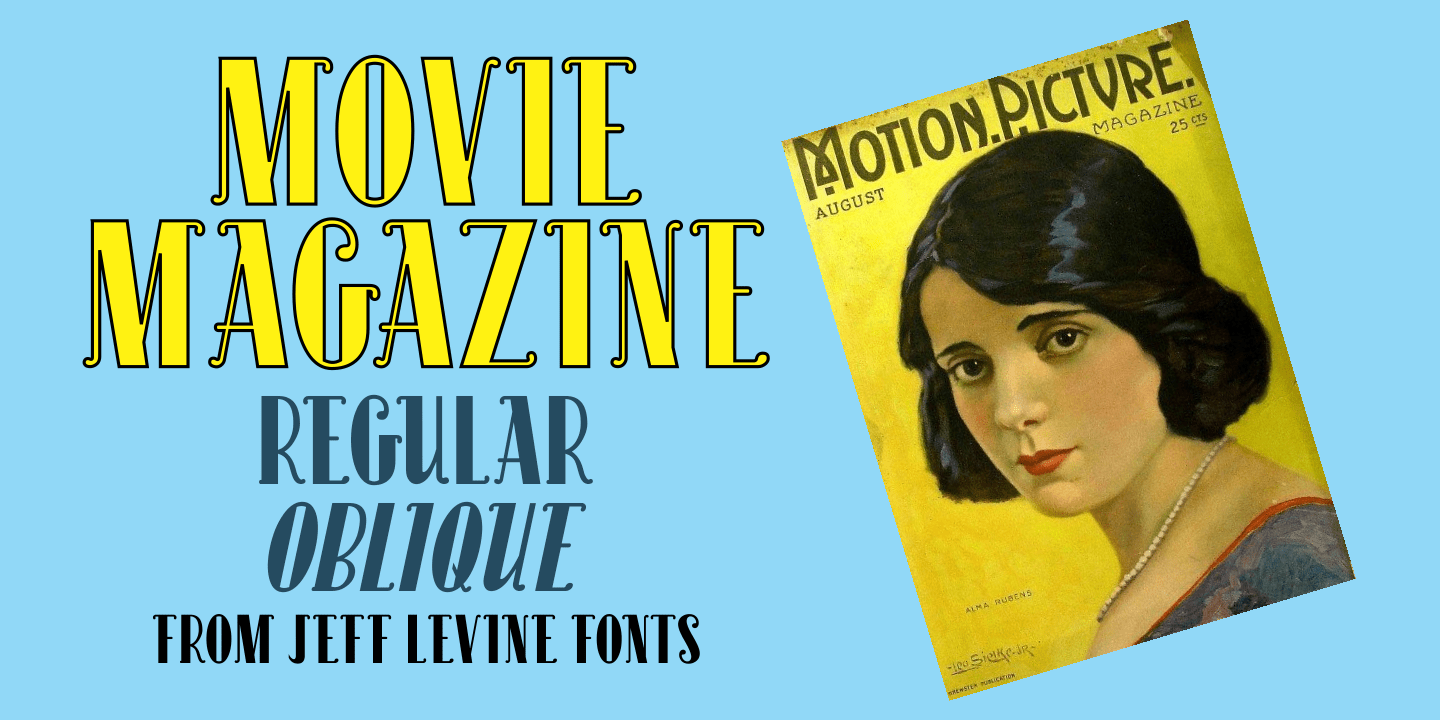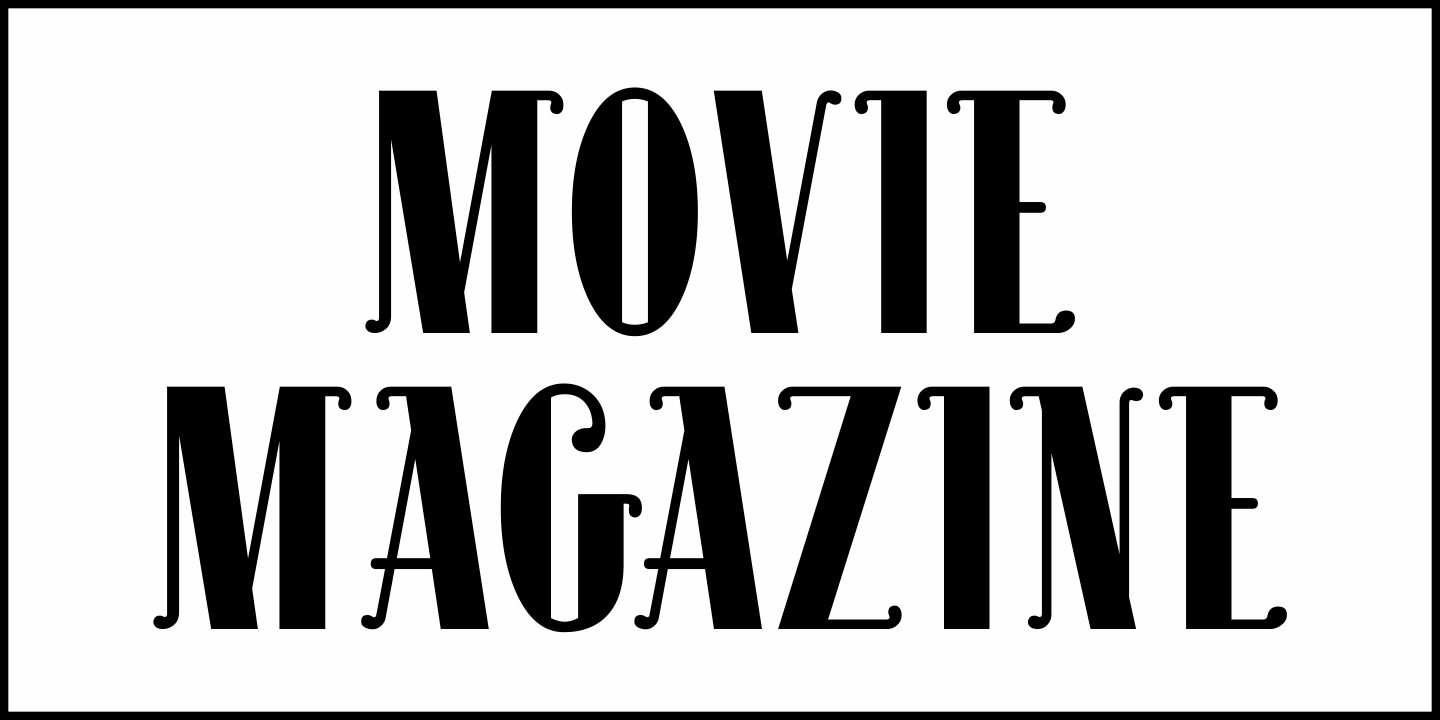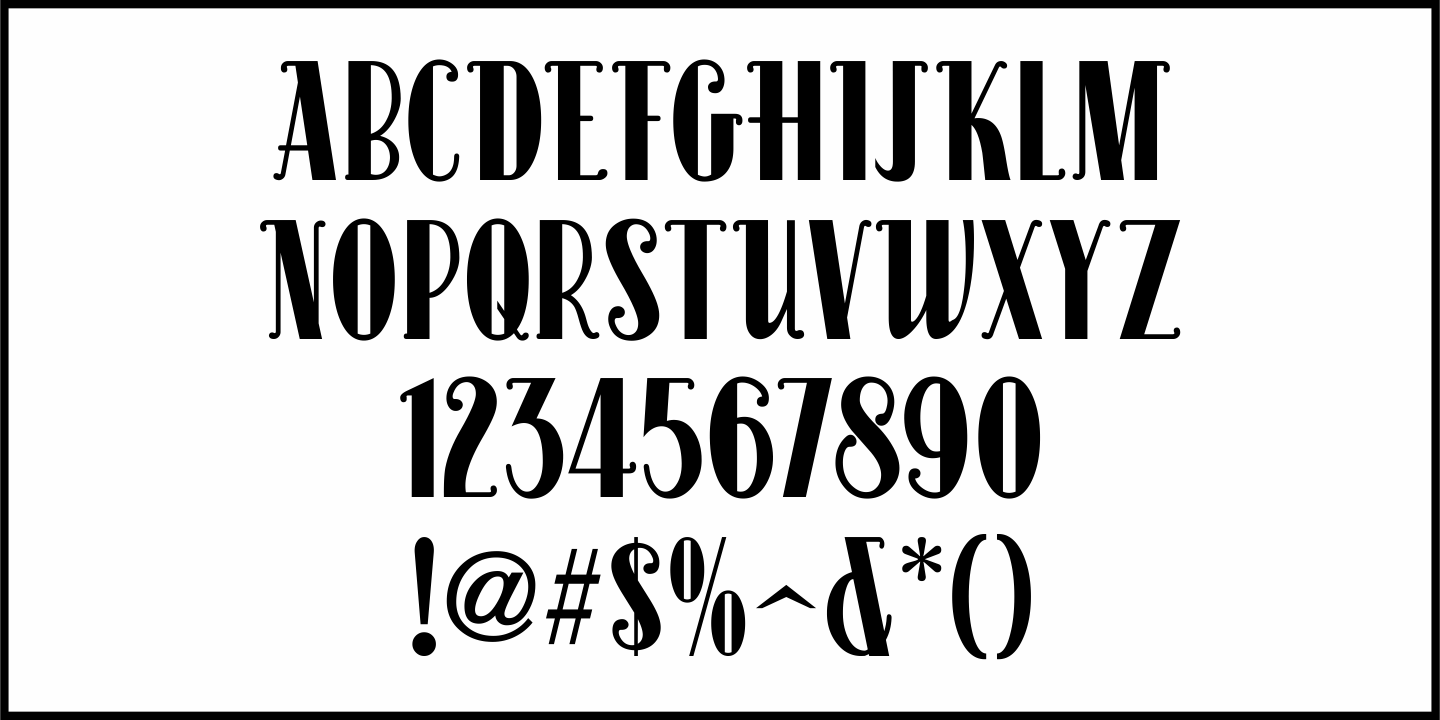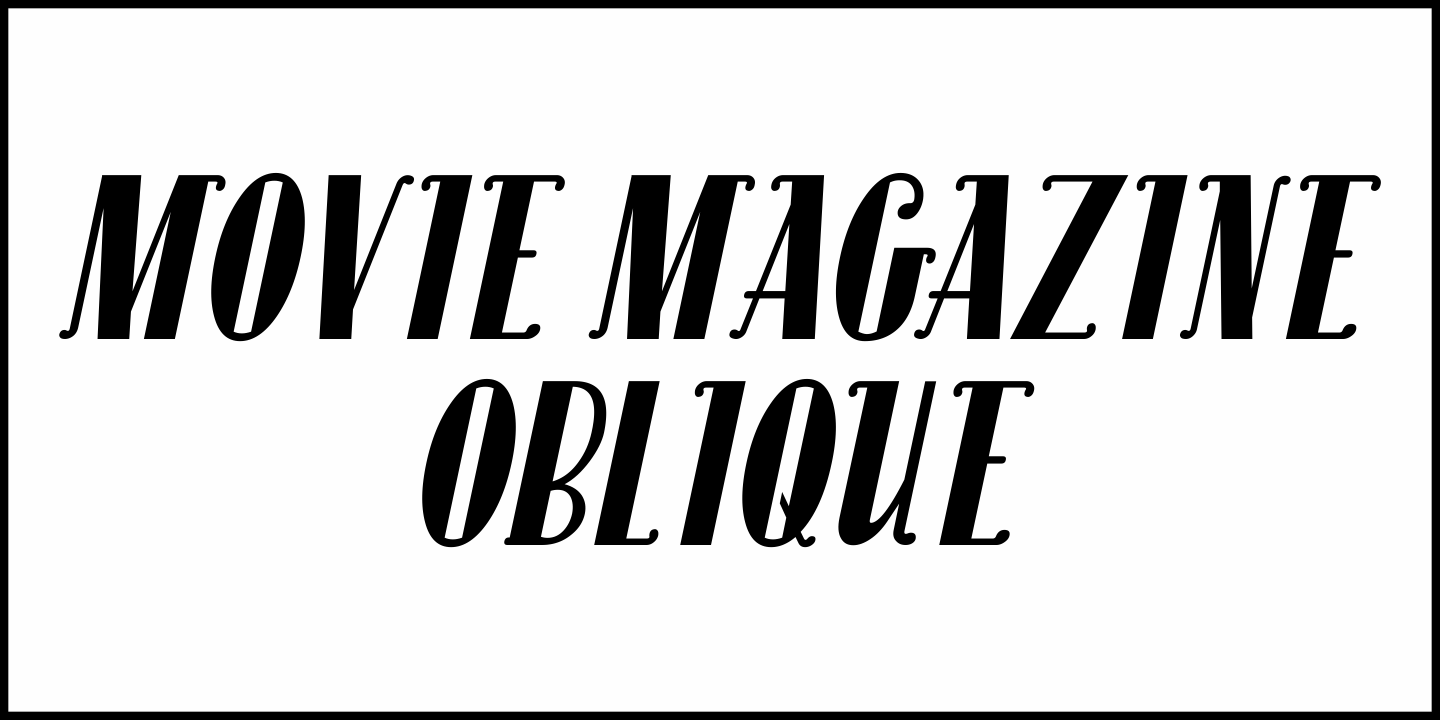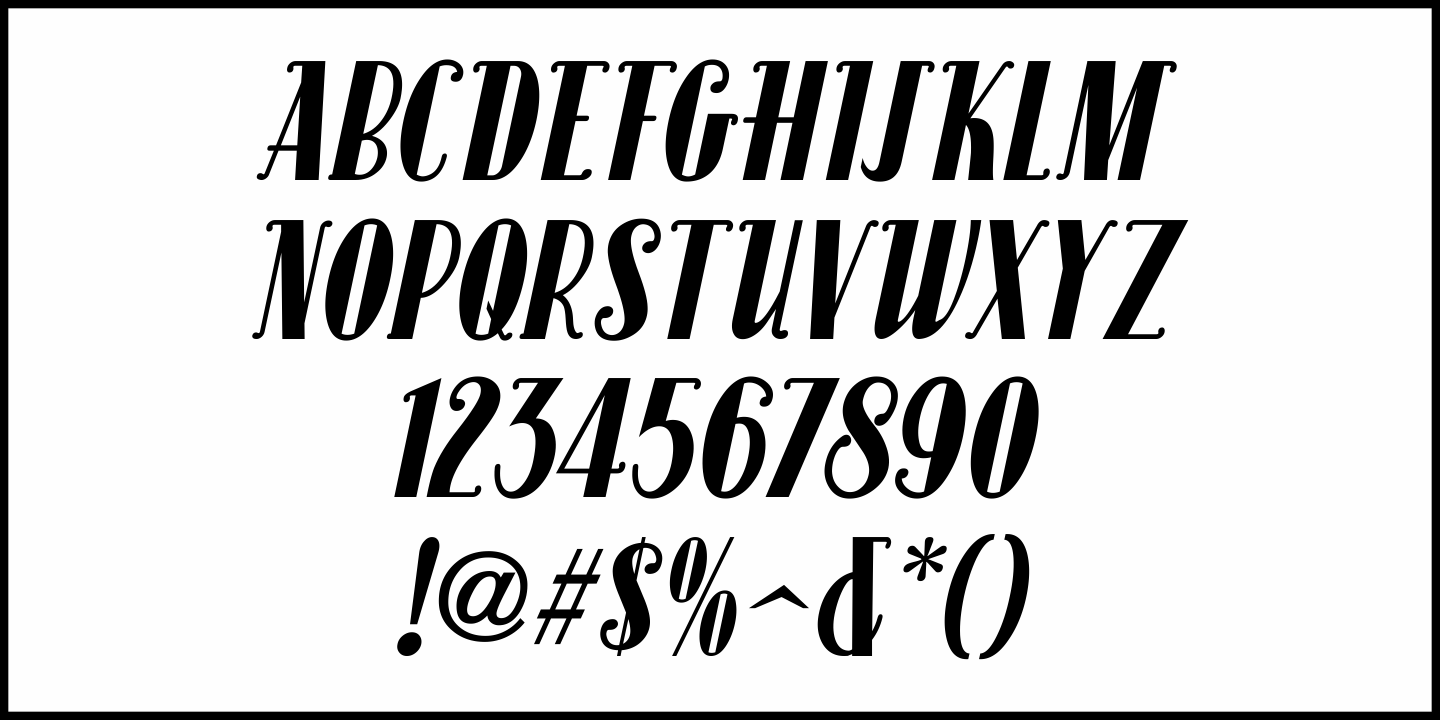
Movie Magazine
Stylized hand lettering with an Art Nouveau feel was found within the pages of the May, 1938 issue of Hollywood Magazine.
This served as the inspiration for Movie Magazine JNL, which is available in both regular and oblique versions.